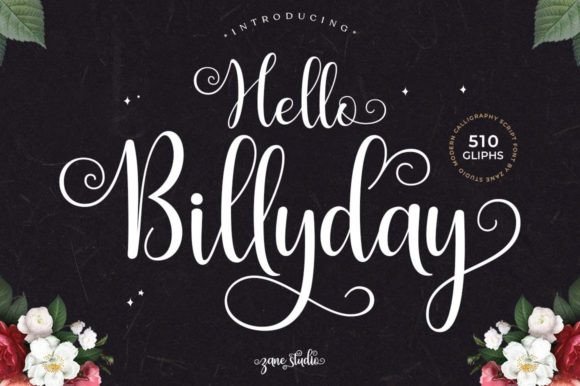
Introducing Hello Billyday Font, the exceptional script font that ignites your creativity and transforms your designs into masterpieces. This remarkable font, designed by the talented Zane Studio, oozes romance, elegance, and a touch of playful charm. With its exquisite swashes and PUA encoding, Hello Billyday empowers you to unleash your artistic vision with effortless ease.
Immerse yourself in a world of endless possibilities as you explore the diverse applications of Hello Billyday. Whether it's crafting captivating logos that leave a lasting impression, designing elegant wedding invitations that evoke heartfelt emotions, or creating eye-catching t-shirts that speak to your unique style, this font delivers unparalleled versatility.
Visualize the allure of your letterheads adorned with Hello Billyday's graceful strokes, adding a touch of sophistication to your business correspondence. Envision the impact of your signage, as this font's captivating characters command attention, inviting customers to discover your brand's captivating story.
Step into the realm of news and posters, where Hello Billyday's dynamic presence captivates readers, drawing them into the heart of your message. Unleash your branding potential as this font elevates your designs, creating a distinct identity that resonates with your target audience. Badges and labels adorned with Hello Billyday's intricate details add a touch of charm and exclusivity to your products, making them irresistible to discerning customers.
Hello Billyday Font is more than just a collection of characters; it's an artistic masterpiece that unlocks your creative potential. Its versatility knows no bounds, allowing you to effortlessly transform your ideas into visual masterpieces.
Embark on a creative journey with Hello Billyday Font, and let your imagination soar. Witness the transformation of your designs as they take on a life of their own, captivating audiences and leaving an enduring impression. Embrace the allure of this extraordinary font and unlock the gateway to a world of boundless creativity.